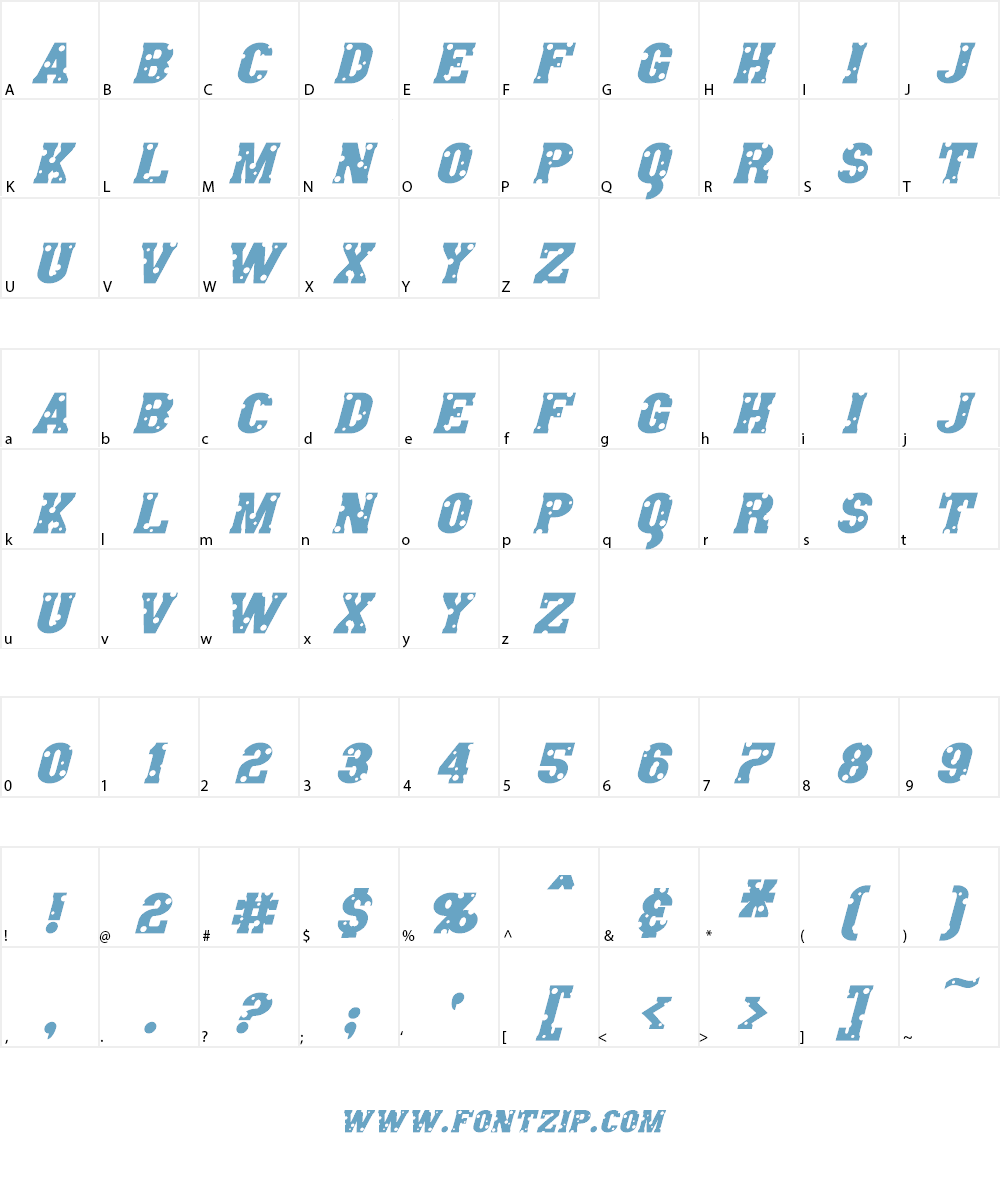
Angel Arms is based on the title logo of the phenomenally well-known Trigun anime series. The face is a bold, western look riddled with bullet holes in each of the letters. Includes full alphabet, extended punctuation, and Euro. Includes regular and italic styles.